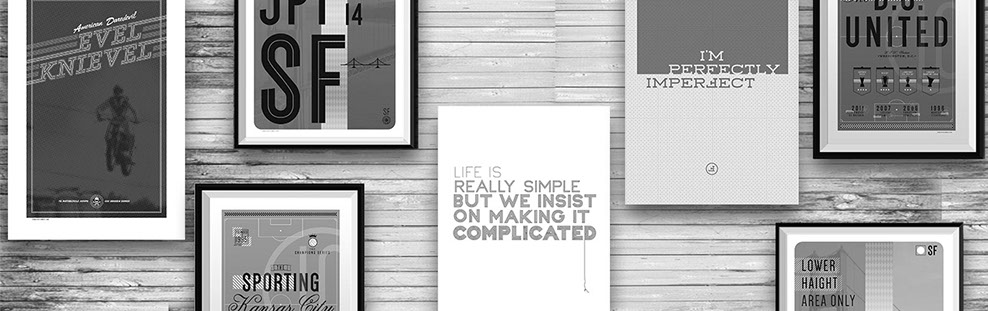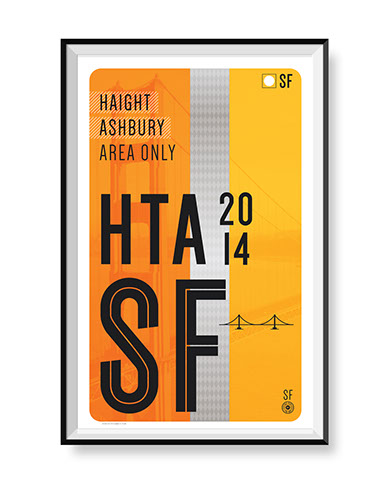
evel
knievel
One of five posters celebrating some of the most trophy-laden clubs in Major League Soccer. Each poster in the series highlights the history of each club through individual and team accomplishments. Showcasing each of the five teams league MVPs on its poster. As well as highlighting the number of times each club has won the Supports Shield, MLS Cup, and the U.S. Open Cup.
MLS
POsters
Formula one
This minimal yet sporty poster is one of 23 showcasing the tracks of Formula 1 during the 2021 season. Each poster not only highlights the unique shape of every individual track but also indicates every turn, number of laps, along with each track's circuit and race length.
A typography inspired poster that has
a little fun with wordplay. Playing off
the idea that's it's always fun to be imperfect. Perfectly Imperfect is I dare
to say perfect for every home. Perfectly Imperfect is a 12x18 silkscreened poster on French Paper Company's Mod-Tone
Paper Ecru paper.
The Delta Project is a series of six different posters testing out the usability of my typeface Delta. Each print is spray-painted by hand with a custom stencil cut out by yours truly. Each is spay painted on sheets of kraft 50 lb paper, with some other posters using additional mediums like newsprint or acrylic. These
are limited-edition 18 x 24 posters with each being unique to its self.
This is a poster series that pays homage to the now existent and once very collectible Muni passes of San Francisco. Inspired by my own collection of passes each poster highlights 1 of 20 neighborhoods in SF. Each poster comes with a unique color scheme along with the icon golden gate bridge in the background.
Another typography inspired poster for the clean and simple lovers of modernism. For this poster, I created a custom typeface with complex maze-like qualities. As
you read from the top down you start with the simplest version of this typeface with just one line. Then too the most complex version of it on the last line, that contains
multiple lines. Life is Simple is a 12x18 silkscreened
poster on French Paper Company's Pop-Tone Paper
Sweet Tooth paper.
The Delta
Project
SF Muni
Posters
Life is
simple
Robert Knievel AKA Evel Knievel, was an American daredevil, entertainer, and international icon. In his career he attempted over 75 ramp-to-ramp motorcycle jumps and broke 433 bones in the process. This print celebrates
the man, the myth, the legend.